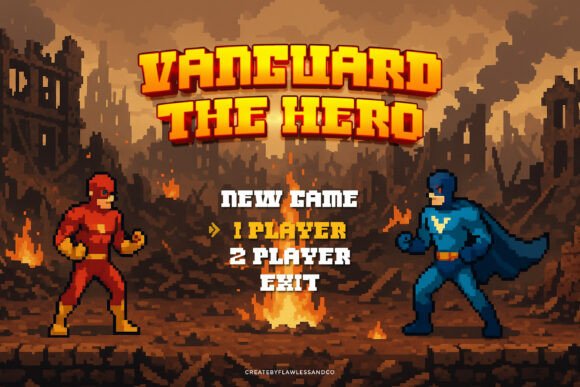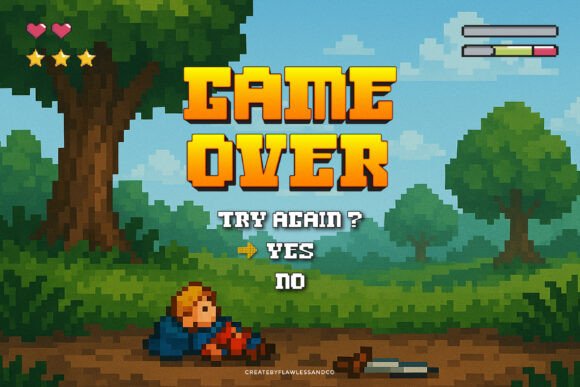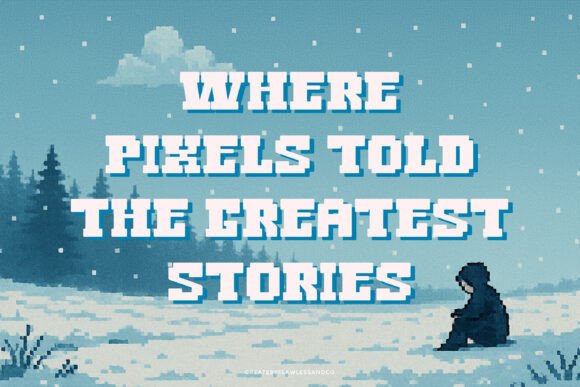
Introduction to Pixeland Font
Remember the thrill of discovering a hidden level or mastering a tricky boss fight in your favorite childhood video game? For many of us, those memories are forever tied to the iconic pixel graphics that brought those worlds to life. Now, designers can tap into that same nostalgic magic with the Pixeland Font – a high-quality, 8-bit-inspired typeface that’s perfect for adding a touch of retro flair to any creative project.
Whether you’re working on a pixel-style game, designing a retro-themed branding campaign, or simply looking for a unique design resource to elevate your next project, Pixeland Font is an invaluable asset. Its transparent background and PUA encoding make it easy to use, even for designers who prefer to work with free download fonts. With its sharp legibility and fun, blocky letterforms, Pixeland Font is sure to bring a smile to the faces of gamers and designers alike.
Key Features of Pixeland Font
- High-quality pixel art design suitable for various creative projects, including video games and animations.
- Transparent background option, enabling seamless integration into different design environments.
- Designed with a pixel-perfect aesthetic, featuring crisp and clear details at 100×100 pixels resolution.
- Perfect for use in 8-bit and 16-bit retro-style games, as well as modern pixel art projects.
- Can be easily scaled up or down without losing its unique pixelated charm.
Honest Review: Pixeland Font
As a designer, I’m always on the lookout for high-quality design resources that can elevate my creative projects. Recently, I stumbled upon the Pixeland Font, and I’m excited to share my honest review with you.
What works well: ✨ The Pixeland Font is a great addition to any design project that requires a modern and retro aesthetic. The font is available as a free download, which is a huge plus for designers on a budget. The transparent background feature also makes it easy to integrate into any design without compromising the overall look.
Limitations: ⚠️ While the Pixeland Font is a great resource, I did notice that it’s not as versatile as some other fonts on the market. The font is designed specifically for pixel art and may not be suitable for more complex design projects. Additionally, the font only comes in a limited number of styles, which may not be enough for designers who require a wide range of options.
Overall, I’m impressed with the Pixeland Font and would definitely recommend it to designers who are working on pixel art or retro-themed projects. However, designers who require a more versatile font may want to look elsewhere.
- High-quality design resource for pixel art and retro-themed projects
- Transparent background feature for easy integration
- Limited styles and versatility
How to Use Pixeland Font
The Pixeland Font is a high-quality, unique design resource ideal for creative projects that require a transparent background and a distinctive look.
Tips for Getting the Most Out of Pixeland Font
To get the most out of the Pixeland Font, experiment with different font sizes, styles, and combinations to create unique and eye-catching designs. You can also use the font in conjunction with other design elements, such as images and graphics, to create a cohesive and visually appealing design.
Common Use Cases for Pixeland Font
The Pixeland Font is ideal for use in a variety of creative projects, including graphic design, digital art, and web design. It is also a great choice for use in logos, icons, and other design elements where a unique and distinctive look is required.
The Pixeland Font is a high-quality font with a transparent background, making it easy to customize and integrate into your design. You can use font editors like FontForge or Glyphs to modify the font’s glyphs, add custom characters, or create variations. This level of customization allows you to tailor the font to fit your specific design requirements, making it an ideal choice for creative projects.